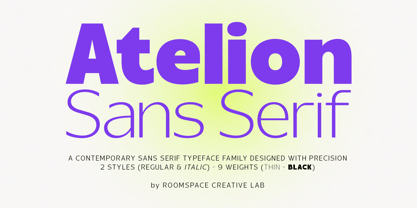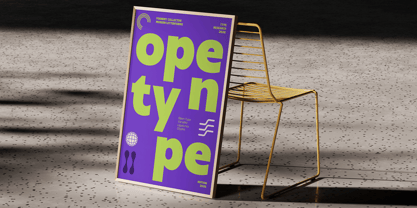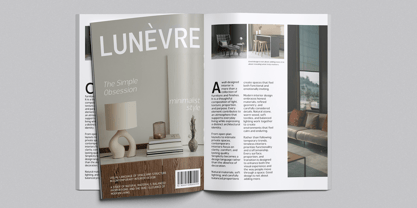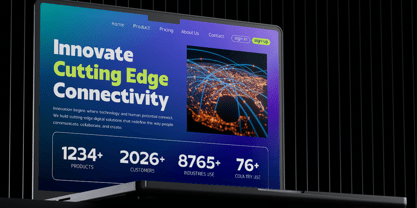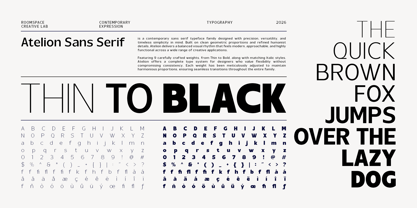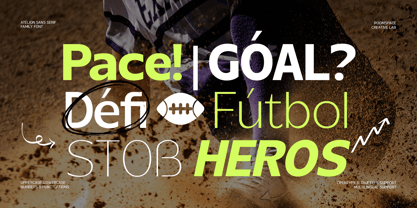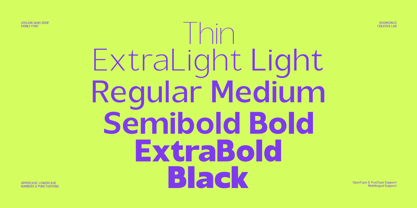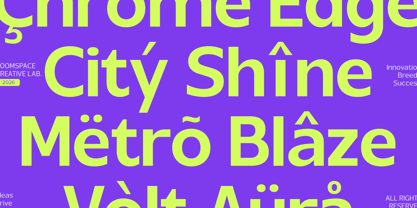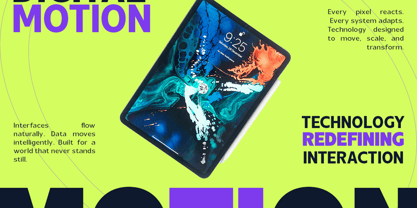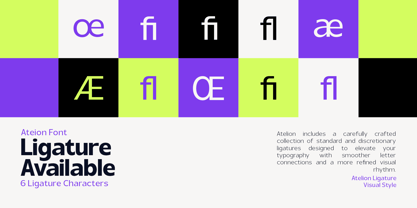
Atelion
La famille de polices Atelion a été conçue par Bakhrudin Ja'far et publiée par Jafar07. Atelion contient 18 styles et options de package familial. En savoir plus sur cette famille
Atelion is a modern geometric sans-serif font family designed with clean proportions, refined letterforms, and a versatile, contemporary character. Its balanced construction combines a precise geometric foundation with approachable forms, making it suitable for both expressive display typography and structured visual communication.
Atelion is designed for a wide range of creative applications, including branding, logo design, editorial design, magazine layouts, posters, advertising, packaging, fashion graphics, digital interfaces, websites, technology projects, presentations, signage, and social media visuals. Its clean and legible forms make it flexible enough for contemporary identity systems while its heavier weights provide a strong presence for headlines and display compositions.
A little from my personal design & background: My name is Bakhrudin Ja'far, I live in Malang, Indonesia. I am currently completing my degree in visual communication design and I have worked as a lettering artist and logo designer for many years. I finally started my studio called roocspace creative lab (jafar07) Studio a few months ago and with my team made my letters into typography.